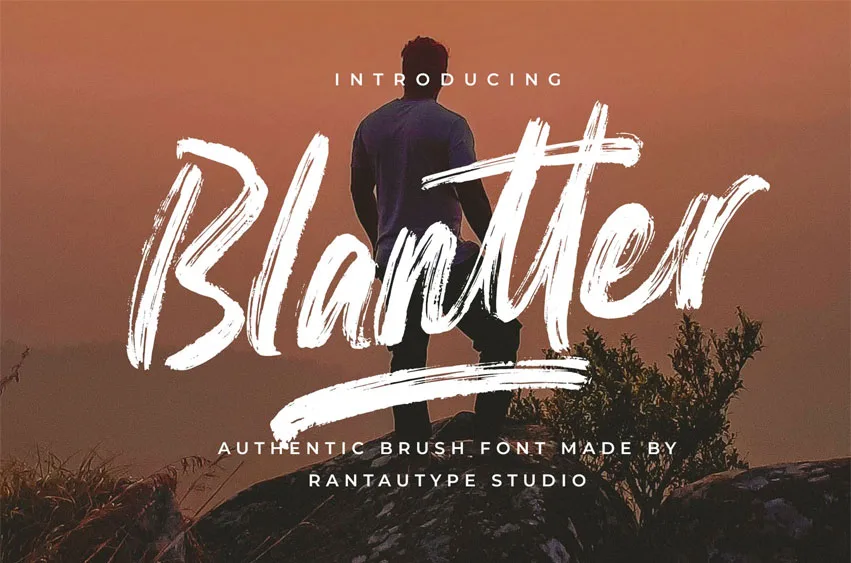
Blantter Font if you’re looking for an authentic brush font, here are blantter. Blantter’s authentic brush font is a typeface designed to replicate the natural strokes of a paintbrush, often used to convey a sense of creativity, energy, and personality. These fonts are inspired by real brush calligraphy, hand-lettering, and expressive strokes, making them ideal for artistic and dynamic designs.
Blantter is a perfect choice for any creative endeavor, creating, modern, chic, lifestyle designs such as logotypes, titles, covers, branding, invitations, wedding designs, displays and magazines, social media posts, advertisements, printed quotes, product packaging, corporate brand, product designs, labels, photography, watermarks, special events and any other project with creativity touch.